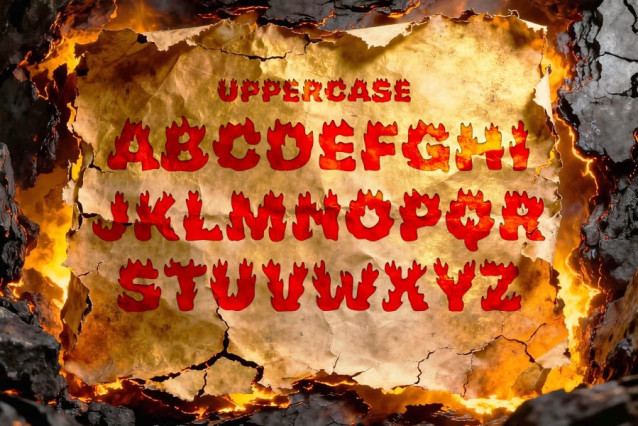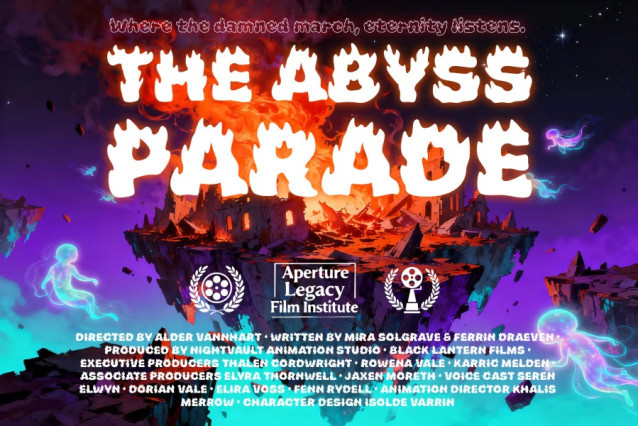
Inferno Bloom Font
Inferno Bloom Font is a blazing dark-fantasy display font inspired by molten lava, fiery textures, and dramatic volcanic energy perfect for posters, games, metal album covers, and fantasy themed designs.
Inferno Bloom is a fierce and electrifying dark-fantasy display font forged from the visual essence of erupting volcanoes, molten lava, and burning embers. Each letter is crafted with sharp, flame-like silhouettes that evoke heat, chaos, and raw elemental power. Its rugged, fiery forms make it an ideal choice for fantasy artwork, metal band graphics, video game titles, horror themes, and dramatic promotional visuals.
Designed to command attention, Inferno Bloom stands out with bold, high contrast shapes that glow with intensity. Whether used for branding, headlines, posters, or thematic typography, this font injects explosive energy and dark mystique into every project. Step into the fire and let your design ignite with Inferno Bloom.